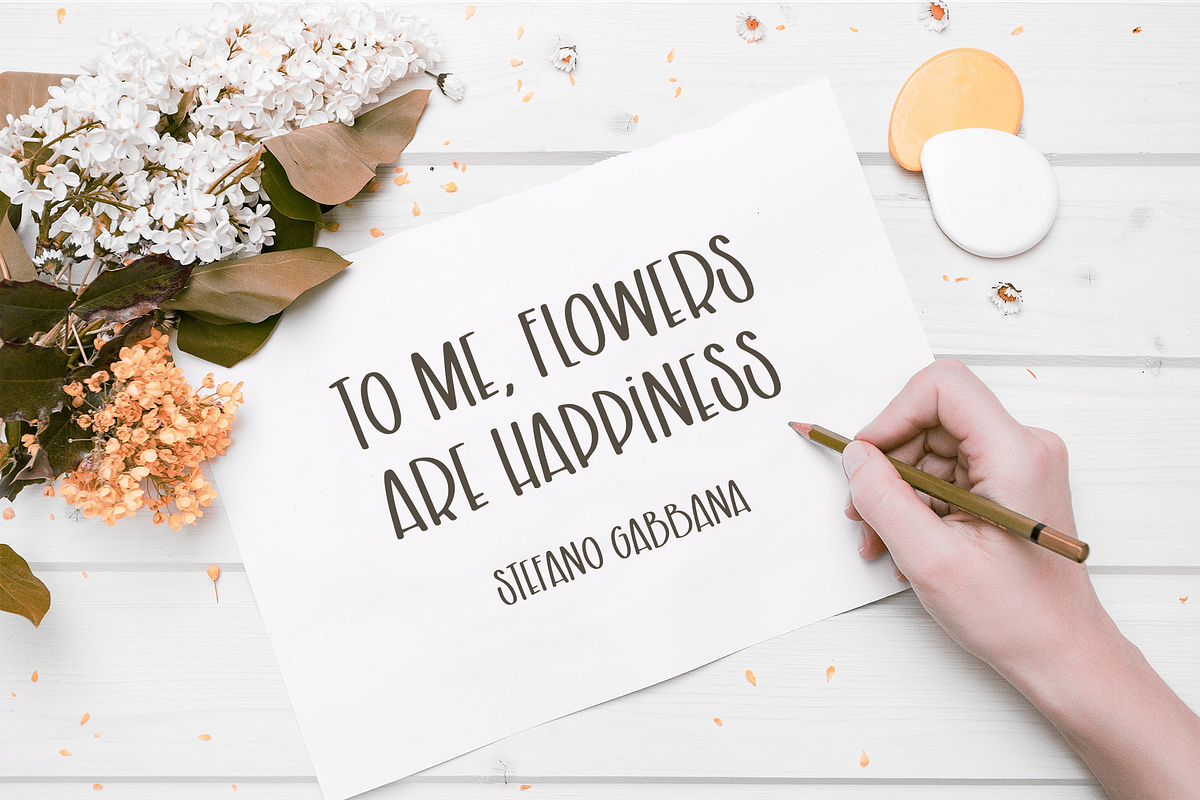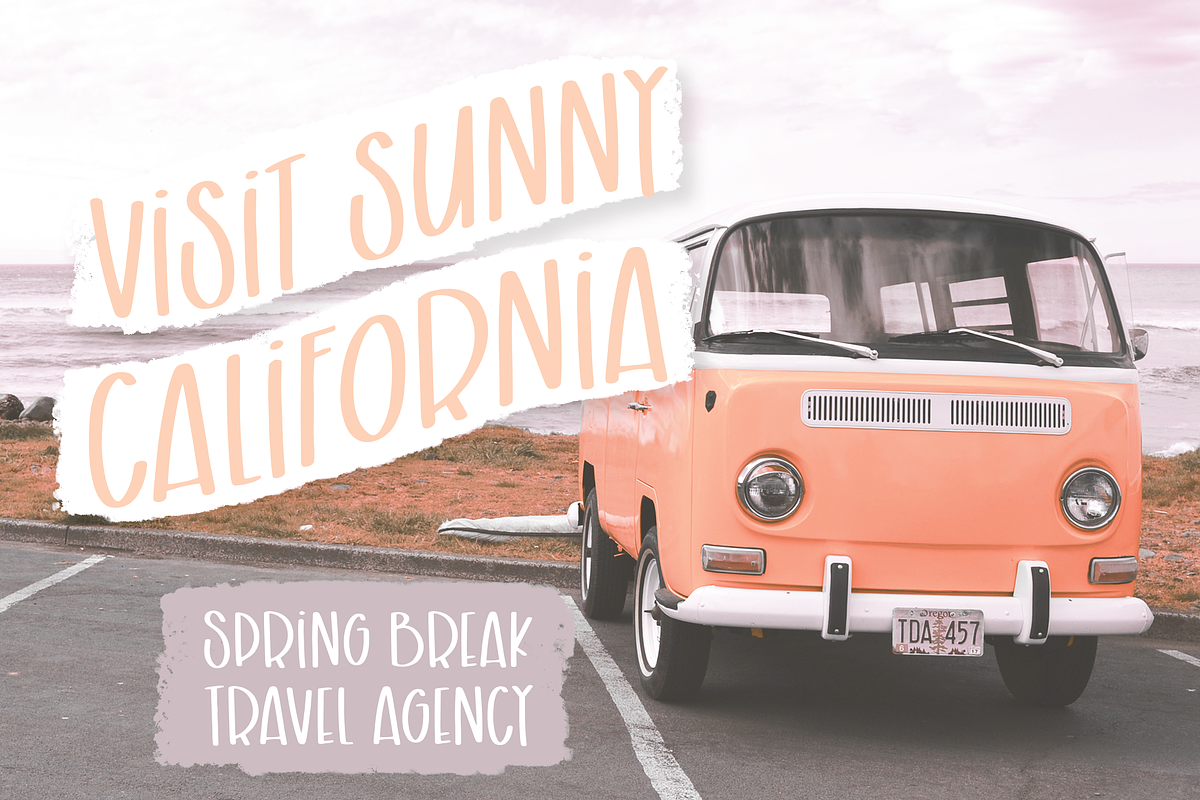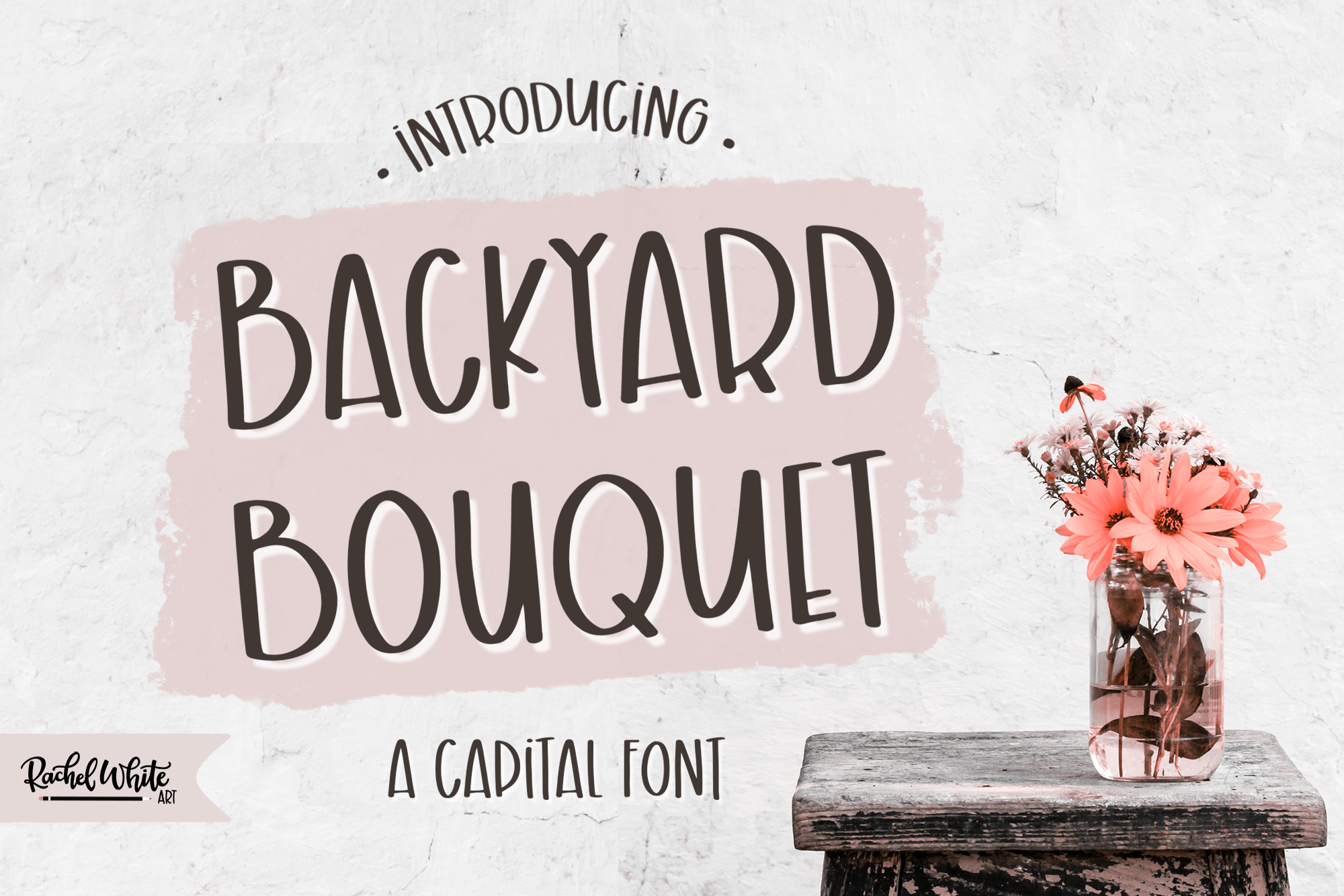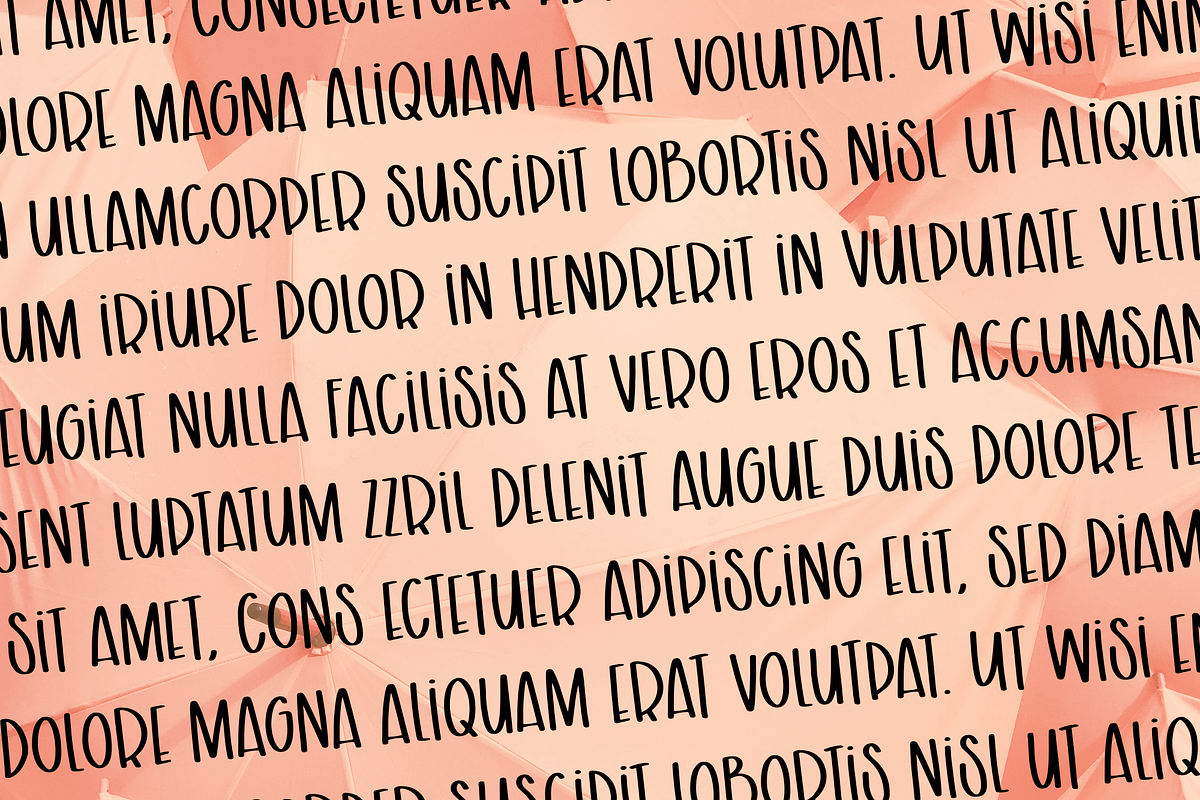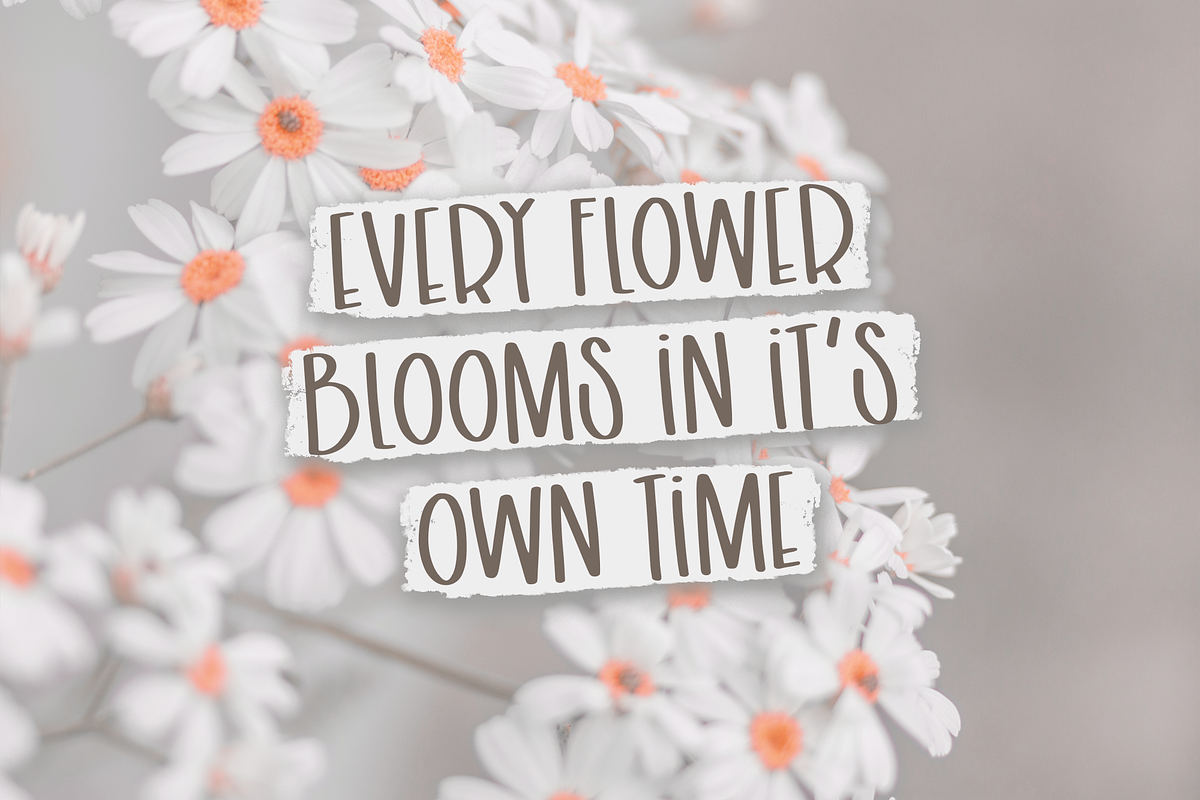
Backyard Bouquet, a capital font
Backyard Bouquet is a hand-drawn all-caps font with a quirky, cheerful style. The slightly uneven strokes and soft shapes give it a whimsical, handmade feel—perfect for greeting cards, product packaging, kids’ projects, and crafty branding.
It’s bold enough for headlines but playful enough for everyday designs. Use Backyard Bouquet when you want something that feels fun, approachable, and a little bit offbeat.
Great for: Packaging, quotes, kids' designs, stickers, posters, headlines, handmade goods